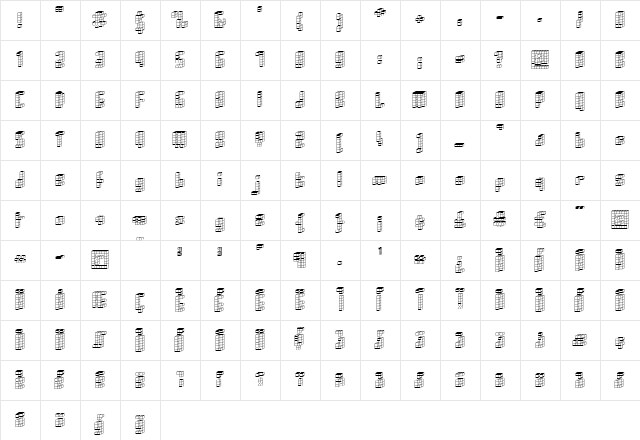
Cubica Regular Font Preview
Cubica Regular
Cubica Regular Font Details
Design Context for Cubica Typeface
Cubica is a composed and adaptable typeface that performs quietly and consistently across a wide range of design contexts.